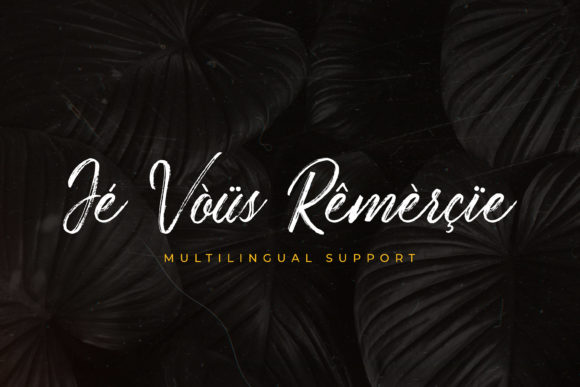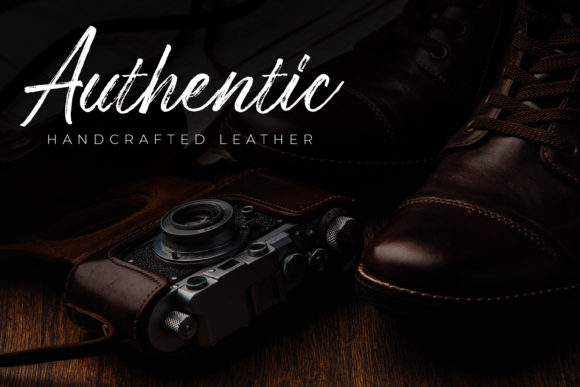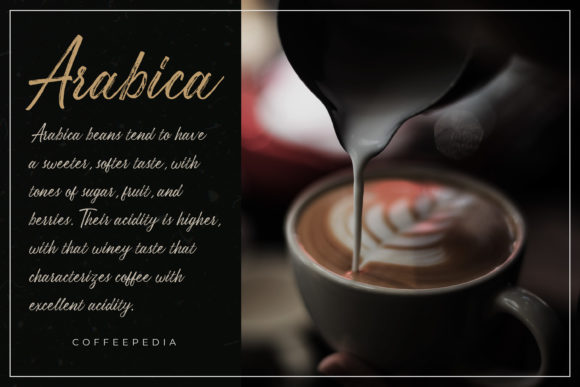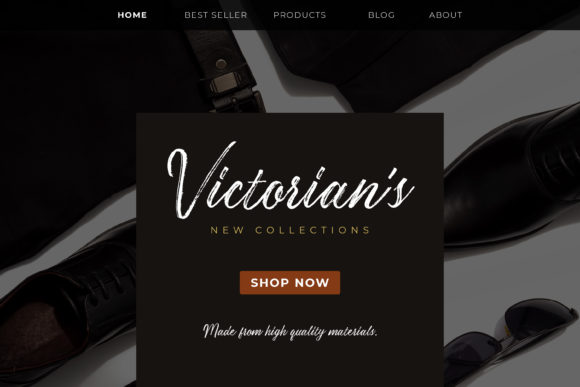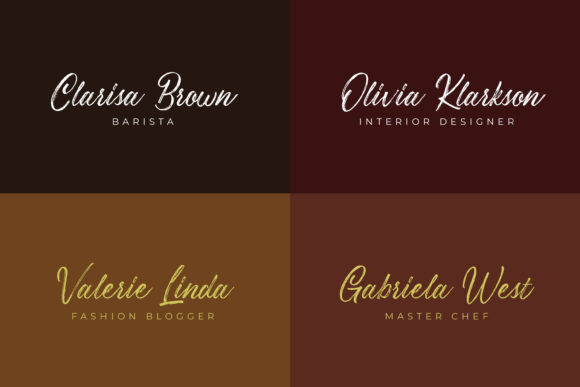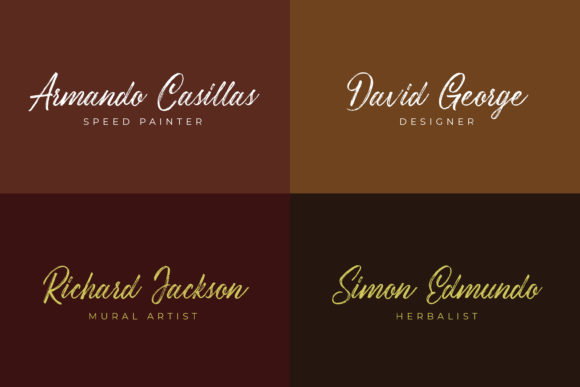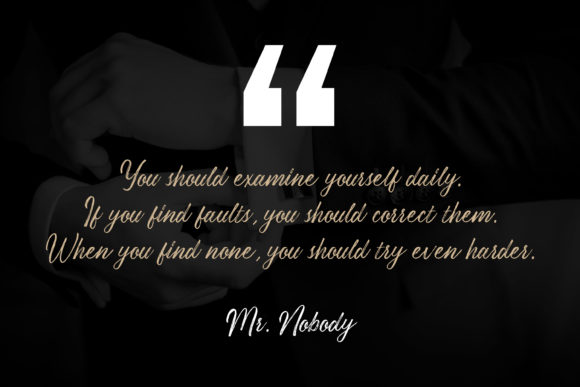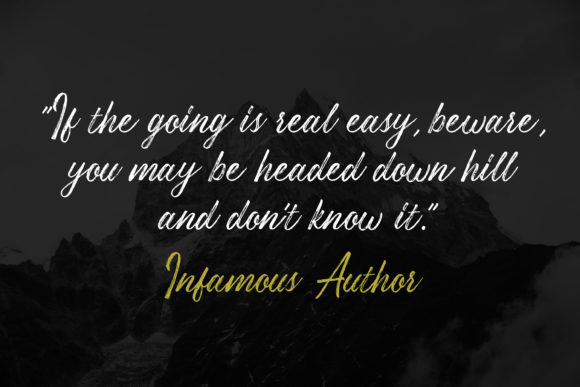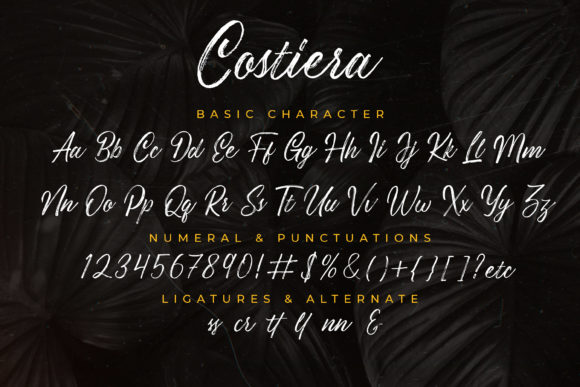
Costiera Font
About Costiera Font
Costiera is an elegant hand-brush script with a casual style.
This font has a charming, authentic and relaxed look, perfect for logo design, quotes, headlines and so much more.